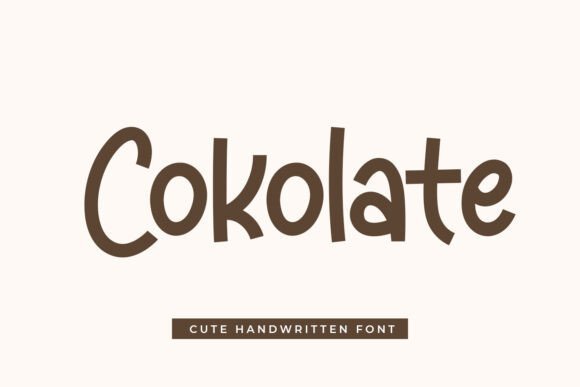
Unleash Your Creativity with Cokolate Font
Have you ever sat down at your desk, stared at a blank canvas, and wondered where to start? The blank page staring back at you can be daunting, but what if I told you that the perfect starting point is just a click away? Introducing the Cokolate Font, a sweet and friendly handwritten font that’s sure to spark your creativity.
This charming font is designed to bring a personal touch to your designs, making it the perfect addition to any project. With its natural and unique style, the Cokolate Font is incredibly versatile, allowing you to unleash your imagination and bring your ideas to life. Whether you’re a seasoned designer or just starting out, this font is sure to become your new favorite tool.
Cokolate Font Key Features
- Unique Characteristics: Cokolate features a distinctive, hand-drawn aesthetic with bold lines and rounded edges, giving it a playful yet elegant feel.
- Language Support: The font supports a wide range of languages, including Latin, Cyrillic, and Greek alphabets, making it suitable for global branding and design projects.
- Font Weight and Style: Cokolate is available in regular, bold, and italic styles, allowing designers to create a range of visual effects and emphasis.
- Scalability: The font is optimized for scalability, ensuring that it remains clear and legible even at small sizes or when enlarged.
Cokolate Font Review
Overall, I found the Cokolate Font to be a fun and quirky addition to any design project. Here are some of its strengths:
- ✨ Unique and playful design: The Cokolate Font has a distinct, handwritten feel that’s sure to grab attention.
- ✨ Versatile: It’s suitable for a wide range of projects, from logos and branding to advertising and editorial content.
- ✨ OpenType features: The font includes a range of advanced features, such as ligatures and swashes, which can add an extra layer of personality to your designs.
- ⚠️ Limited language support: The Cokolate Font may not be suitable for projects that require a wide range of languages.
- ⚠️ Not ideal for small text: The font’s playful design can make it difficult to read in small sizes, so be sure to test it in different contexts.
- ⚠️ May not be suitable for formal projects: While the Cokolate Font is perfect for creative and playful projects, it may not be the best choice for formal or corporate designs.
Overall, I think the Cokolate Font is a great addition to any designer’s toolkit. While it may have some limitations, its unique design and versatility make it a great choice for a wide range of projects.
To get the most out of the Cokolate Font, try combining it with bold or italic styles to add emphasis to your text.
Experiment with different font sizes to create visual hierarchy in your design.
Use the Cokolate Font in conjunction with other design elements, such as images and graphics, to create a cohesive and visually appealing design.
The Cokolate Font is perfect for:
Brand logos and identity design
Restaurant and food menus
Any design project where a unique and playful font is needed
Alternatives to Cokolate Font
Great Vibes is a modern script font that can be used for creating a unique and elegant design. It’s ideal for titles, headings, and any other text where a personal touch is desired. Great Vibes is more refined and polished compared to Cokolate Font, making it suitable for high-end designs.
Similarity: Both fonts have a playful and handwritten feel. Difference: Great Vibes is more sophisticated and elegant, while Cokolate Font is bolder and more casual.